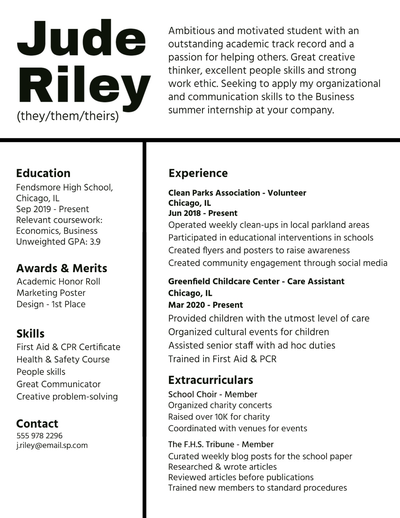
Valuable input on readability and visual appeal Changing your resume font for different applications
what is a good font for a resume
- Understanding the typography of example resumes Best free fonts for resumes
- Uniformity in typography across all pages What are some key characteristics of a highly readable font for a resume?
- Choosing fonts that aren't too common
- Which fonts do recruiters prefer?
- Avoiding fonts with strong pre-existing connotations How can I use font to emphasize career progression and growth on my resume?
- Using bold or a slightly larger font size for key dates
- Ensuring the font renders correctly across different devices and browsers
- Balancing familiarity with the desire to stand out
- Fonts that are widely recognized and avoid negative connotations